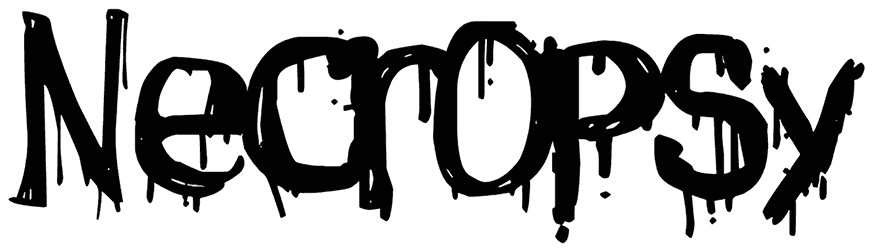
Necropsy Font
Necropsy is the best way to create a real sense of horror in the viewer. Because it has a handwritten style that contains a human character inside it, and can target the audience’s heart. The combination of this blood fo…
Necropsy is the best way to create a real sense of horror in the viewer. Because it has a handwritten style that contains a human character inside it, and can target the audience’s heart.
The combination of this blood font with drops of blood has made its scary nature multifaceted and more powerful. You can use this dripping font to implement a pleasant design in this year’s Halloween invitations or use it to create an attractive poster for the children’s school party.